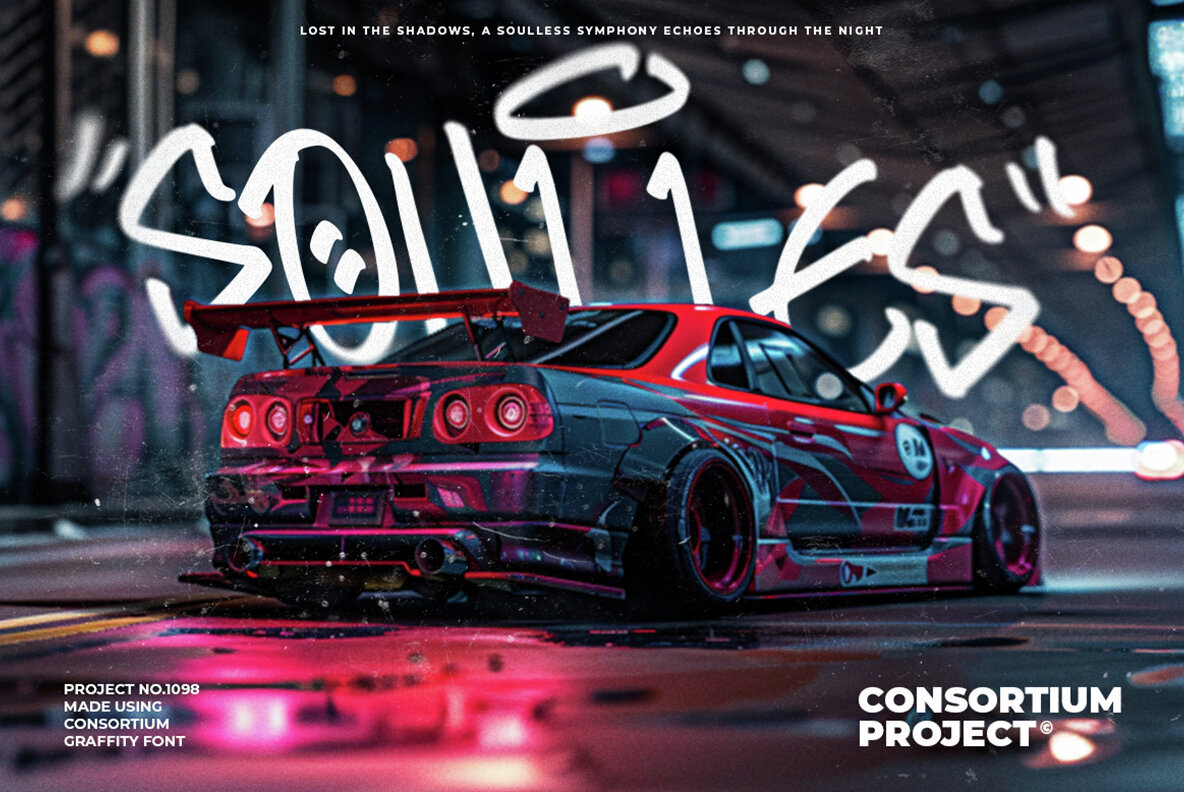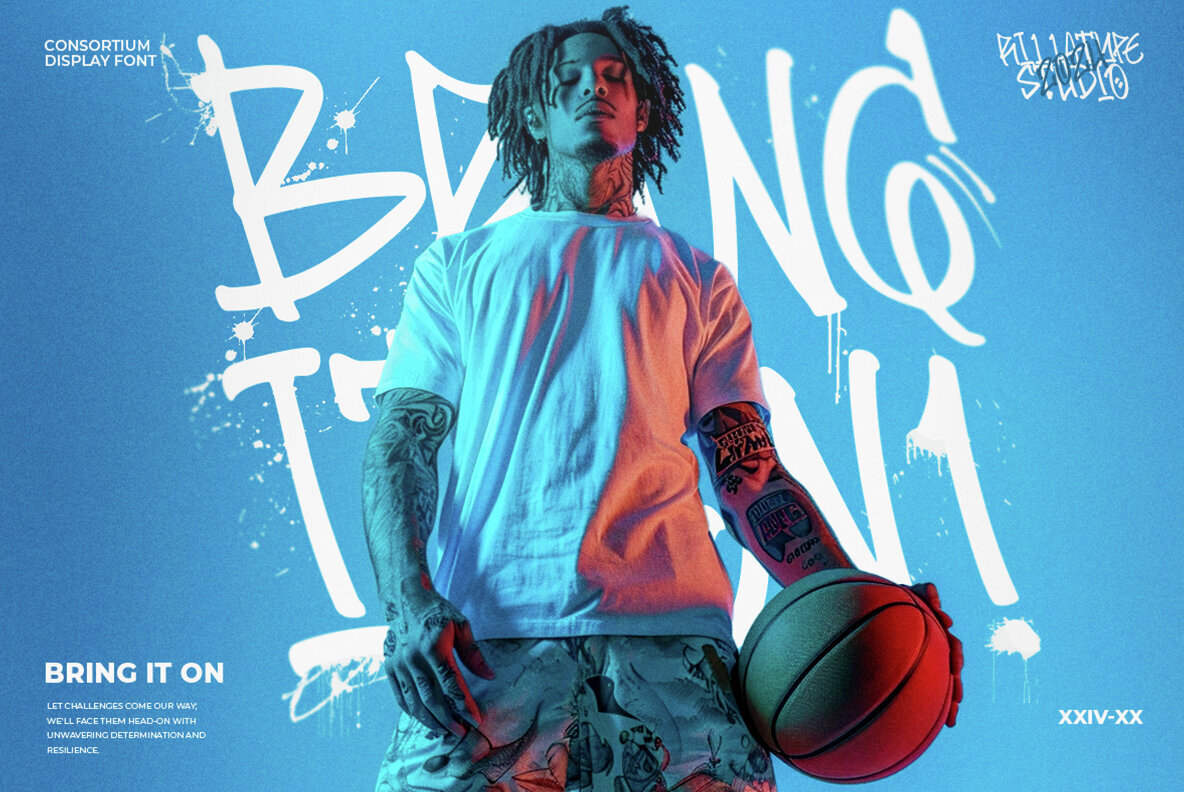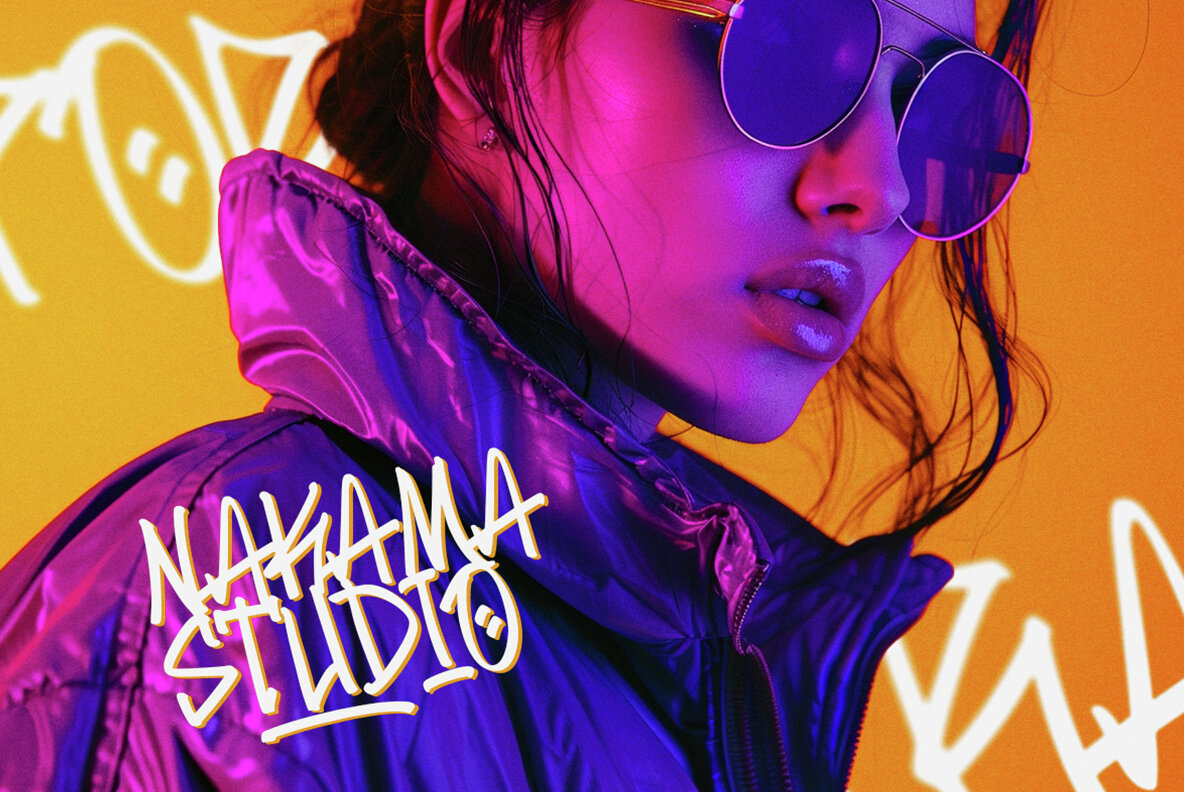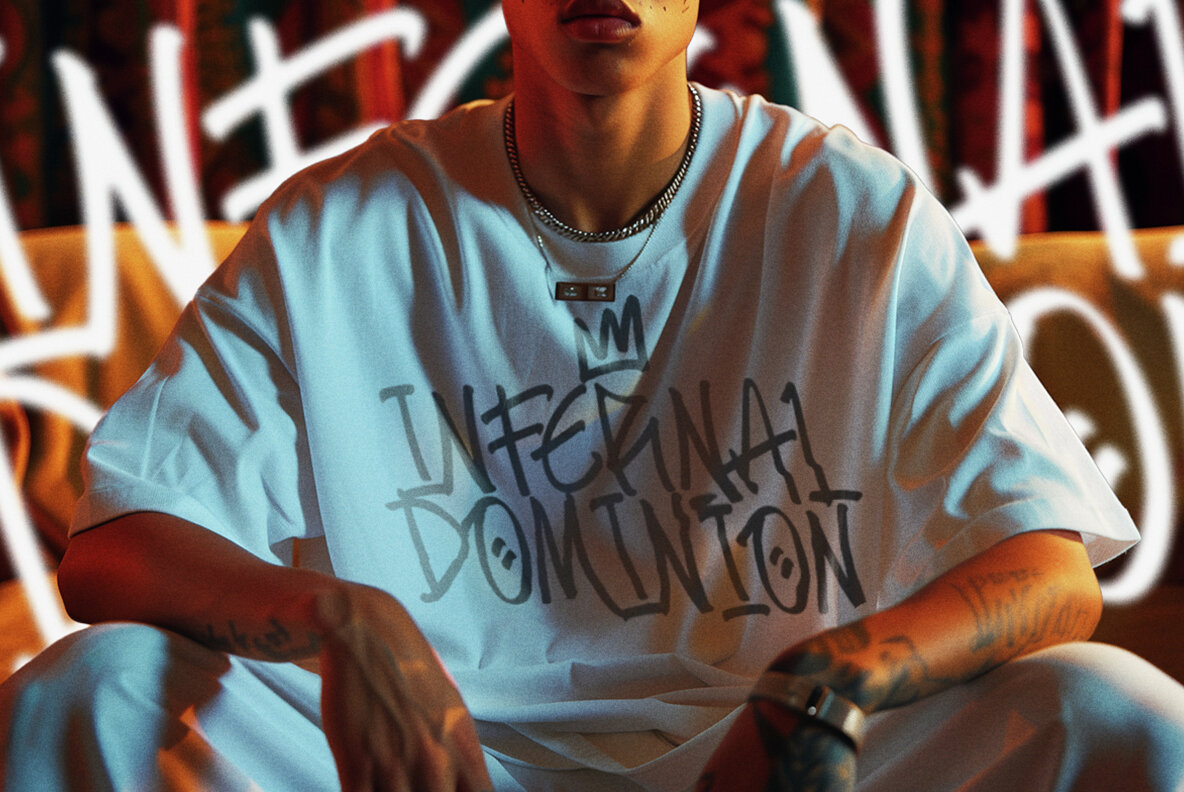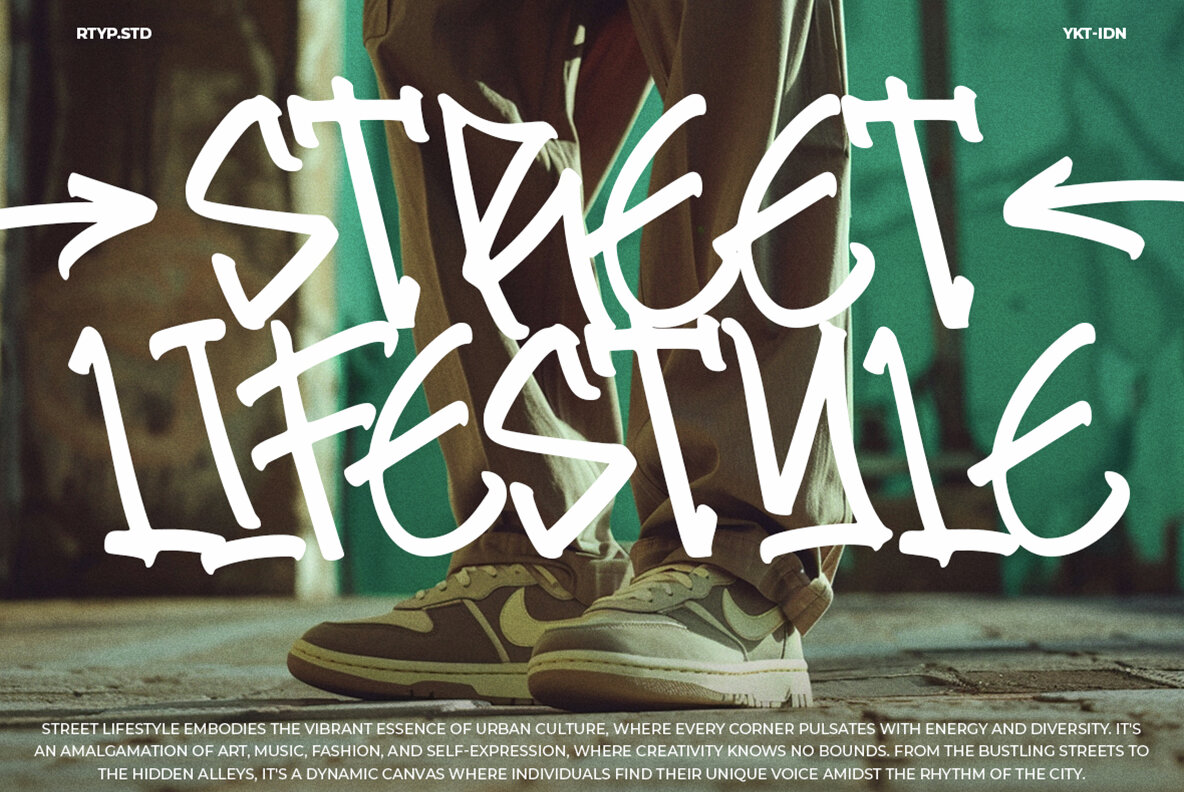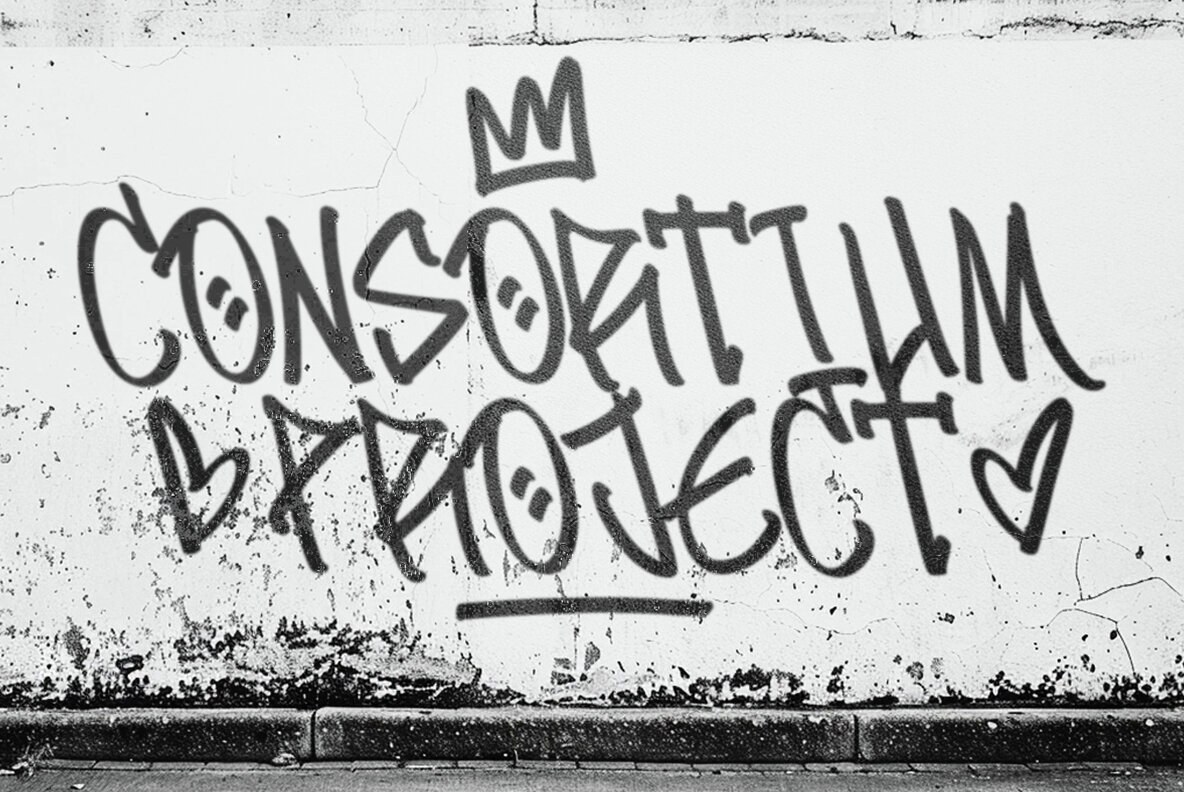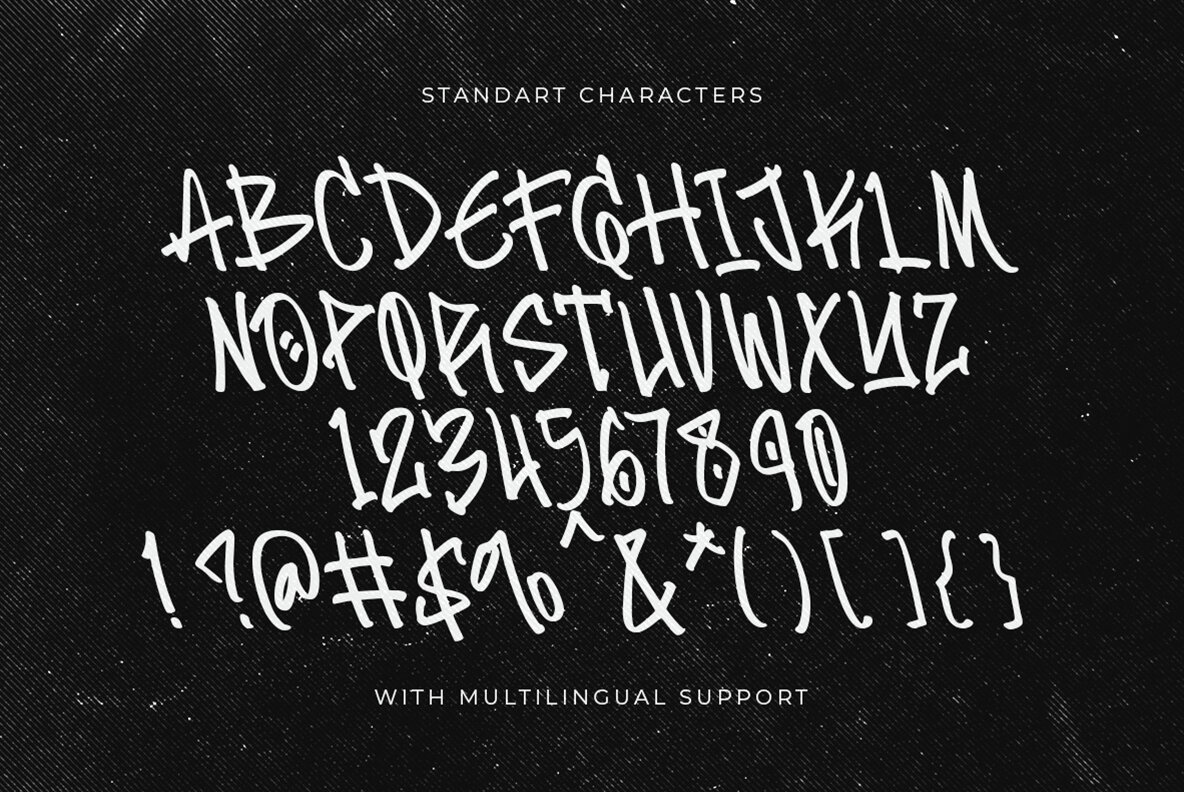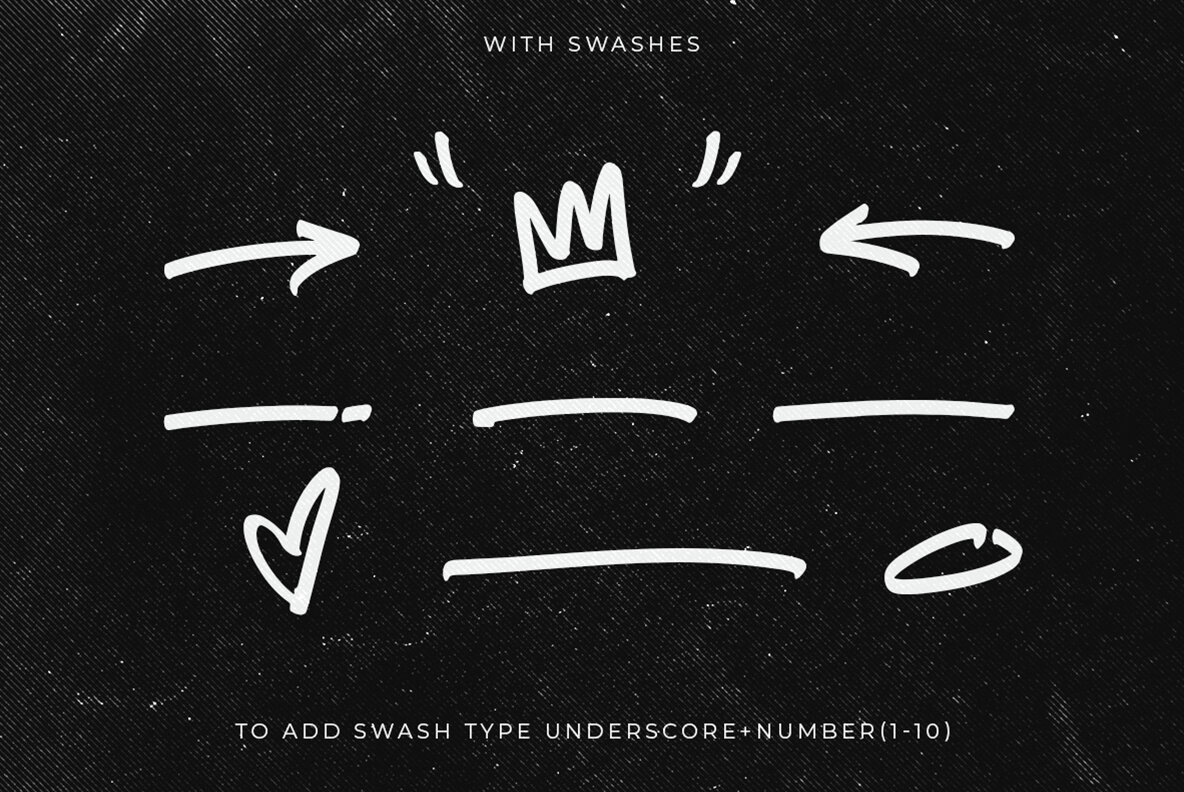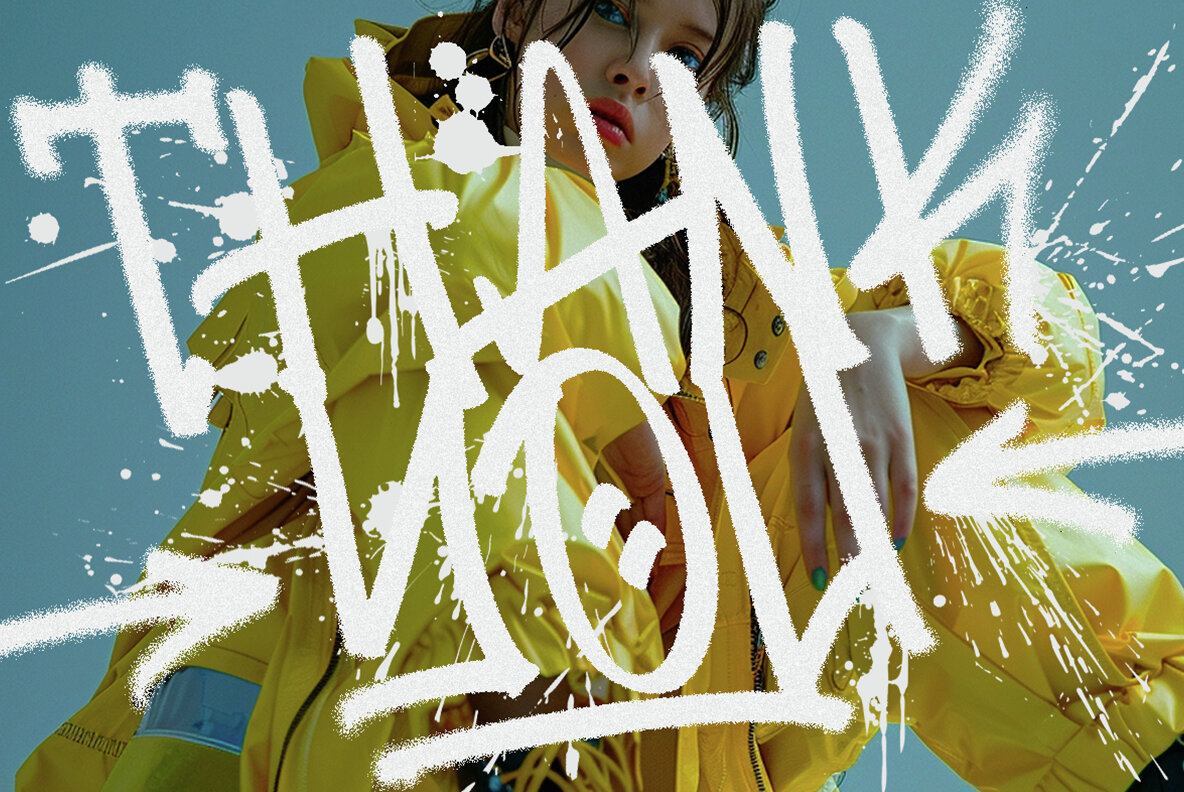
Consortium Font
RT Consortium Regular
Consortium font is a testament to the vibrant world of street art. Crafted with bold strokes and edgy curves, it embodies the urban flair and rebellious spirit of graffiti culture. Whether you're designing posters, flyers, or digital artwork, Consortium adds an unmistakable urban edge to your creations. With its dynamic energy and expressive style, this font brings the streets to life and lets your creativity shine. Embrace the urban aesthetic and make your designs stand out with Consortium graffiti font.